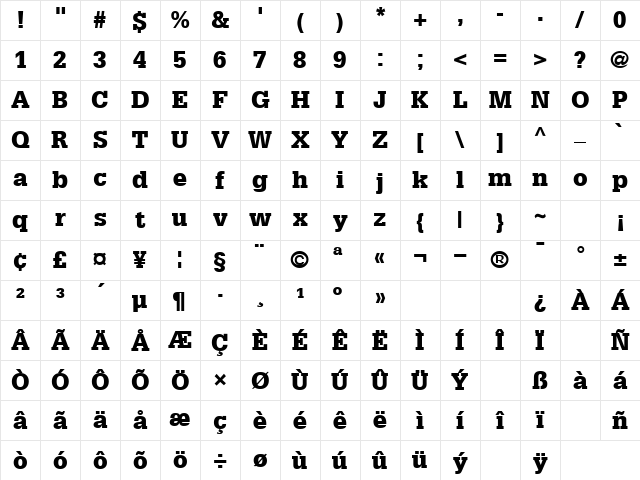
EgotistBlack Normal
EgotistBlack Family
Design Context for EgotistBlack
EgotistBlack is a composed and adaptable typeface that performs quietly and consistently across a wide range of design contexts.